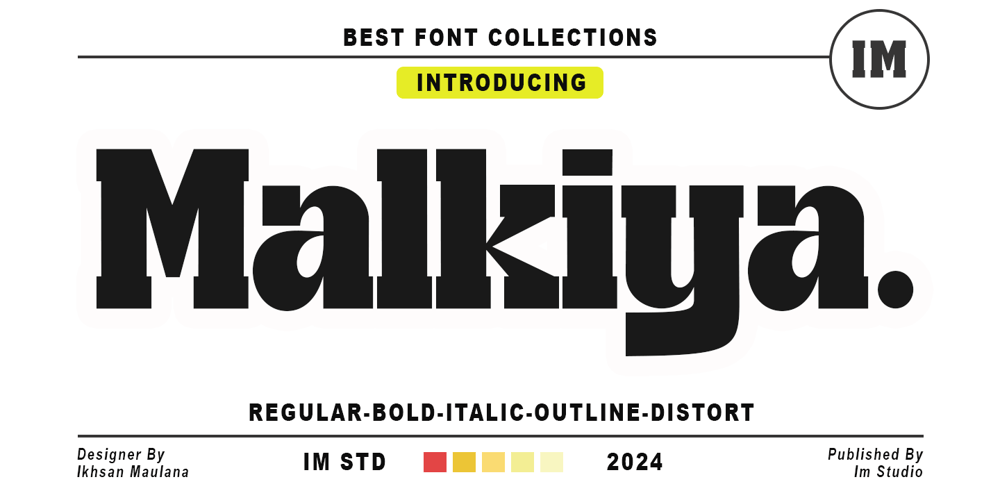
Malkiya Font Family was designed by Ikhsan Maulana and published by IM Studio. Malkiya contains 5 styles and family package options. Malkiya is a strange font that stands out for its versatility.His personality develops through his particular modulation, which grows with load; making it a rather jovial typeface that doesn’t abandon the more whimsical characteristics of the classic.With five styles available: Regular, italic, distort, bold, outline as well as a variety of exquisite variations, this font offers incredible flexibility for your designs.